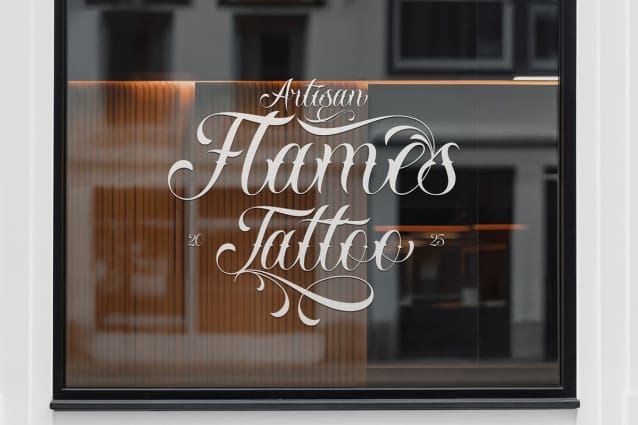
Nocthane Font is a classic tattoo-style font that brings the bold spirit of traditional ink art into typography. Designed to capture the flow and attitude of tattoo lettering, it combines elegant script forms with sharp, decorative swashes, creating a striking balance between beauty and rebellion. Every curve and stroke in Nocthane is crafted to exude confidence, making it perfect for tattoo-inspired branding, apparel, posters, or creative logo designs that demand a strong personal touch. Whether you’re designing for a tattoo studio, a rock band, or a lifestyle brand, Nocthane helps your visuals stand out with attitude and authenticity.